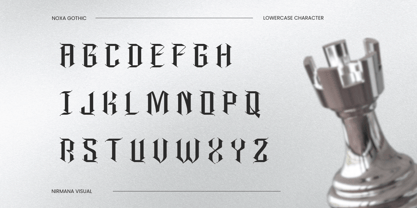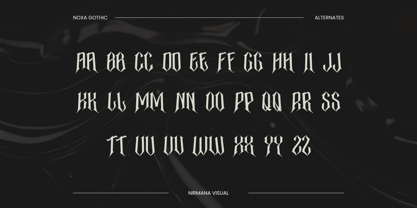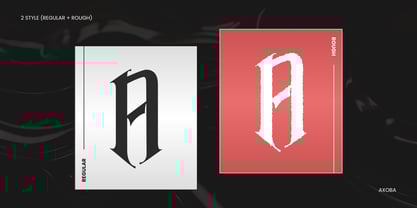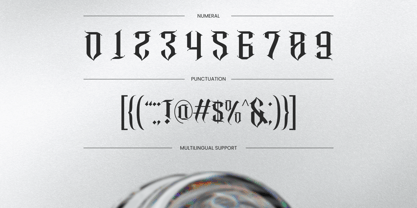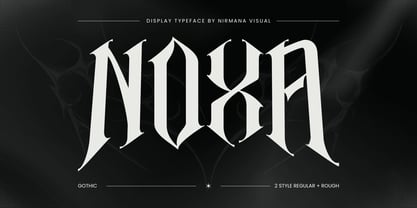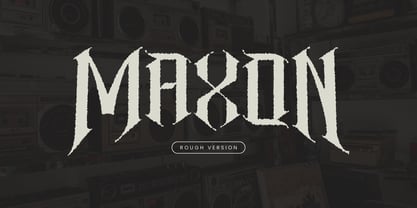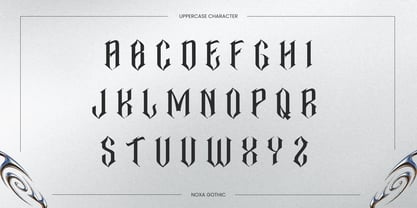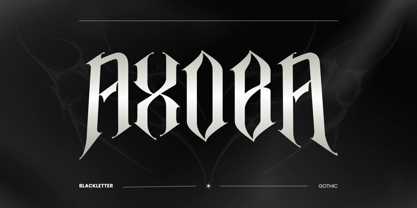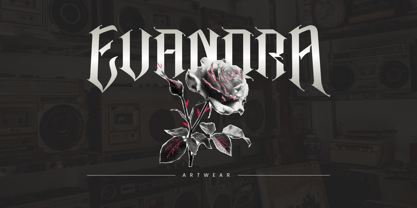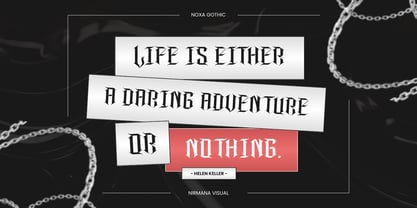
Noxa Gothic
by Nirmana Visual
The Noxa Gothic Font Family was designed by Sigit Dwipa and published by Nirmana Visual. Noxa Gothic contains 2 styles and family package options.
Noxa Gothic is a bold and powerful metal-style font, designed for impact and intensity. It comes in Regular and Rough styles, perfect for logos, album covers, and merchandise. The Regular style features sharp, clean edges with a gothic-industrial feel, while the Rough variant adds raw, distressed textures for a more aggressive, worn-out look. Whether for dark aesthetics or heavy metal branding, Noxa Gothic delivers a striking, high-energy presence.
Designers: Sigit Dwipa
Publisher: Nirmana Visual
Foundry: Nirmana Visual
Design Owner: Nirmana Visual